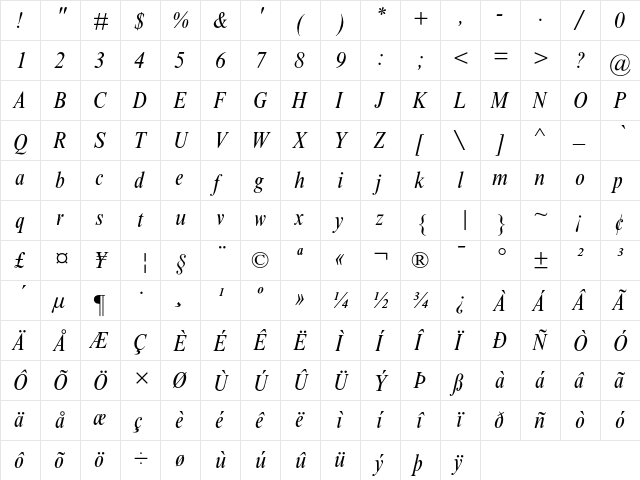
Times Condensed Italic Font Preview
Design Context for Times Typeface
Times offers clean, dependable letterforms without strong stylistic allegiance, making it a practical choice for designers who need flexibility. The slanted form adds forward momentum and visual energy. The condensed width makes it efficient for tight spaces without sacrificing legibility.
Pro Tip: Try Times for annotation and caption copy alongside an upright companion — the contrast in angle creates a dynamic but ordered typographic system.